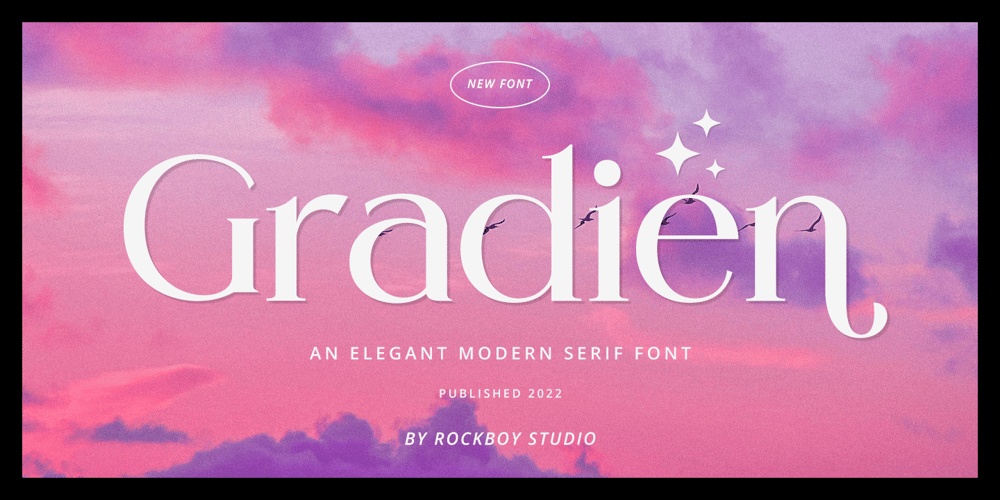
Gradien
Gradien font
Gradien Font Family was designed by Hayinah and published by Rockboys Studio. Gradien contains 1 styles and family package options. The Gradien is characterized by its distinctive blend of classic serif elements with modern design features, making it a versatile choice for both traditional and contemporary projects.Overall, Gradien Serif stands out as a refined serif font that bridges the gap between tradition and modernity, making it a popular choice among designers looking for a versatile and elegant typographic solution.